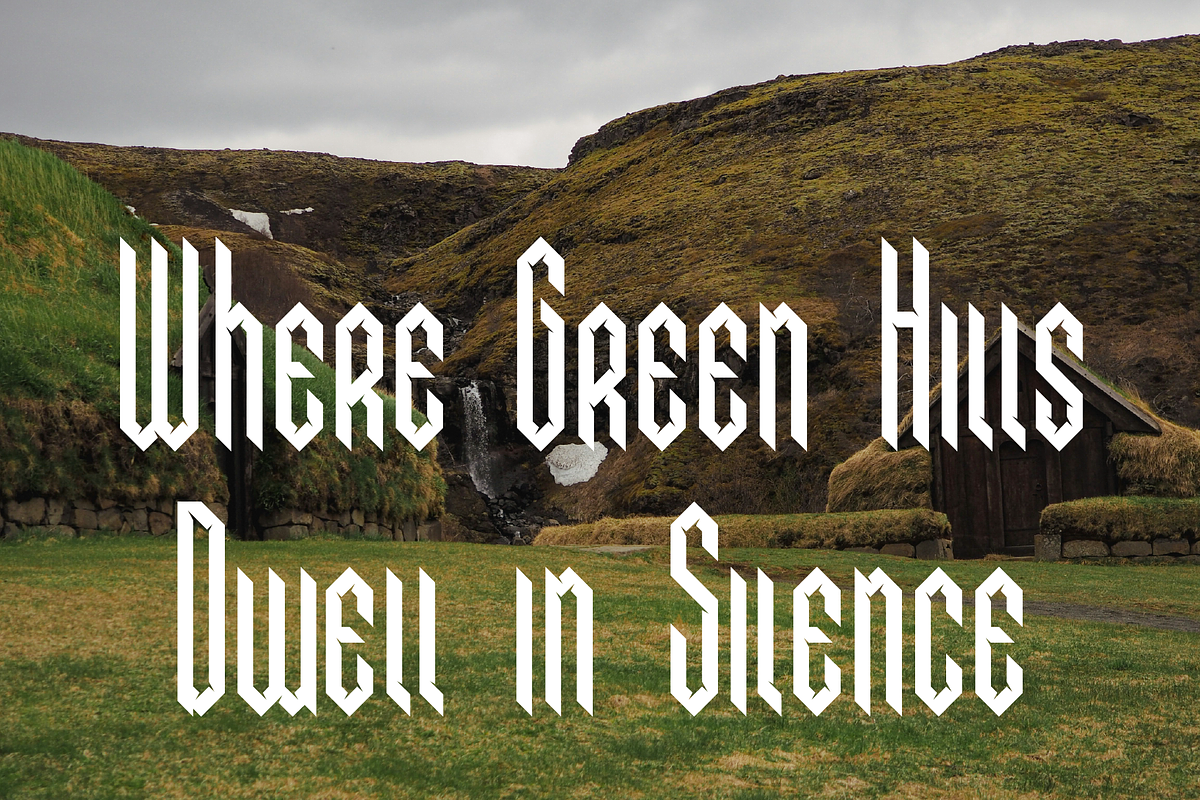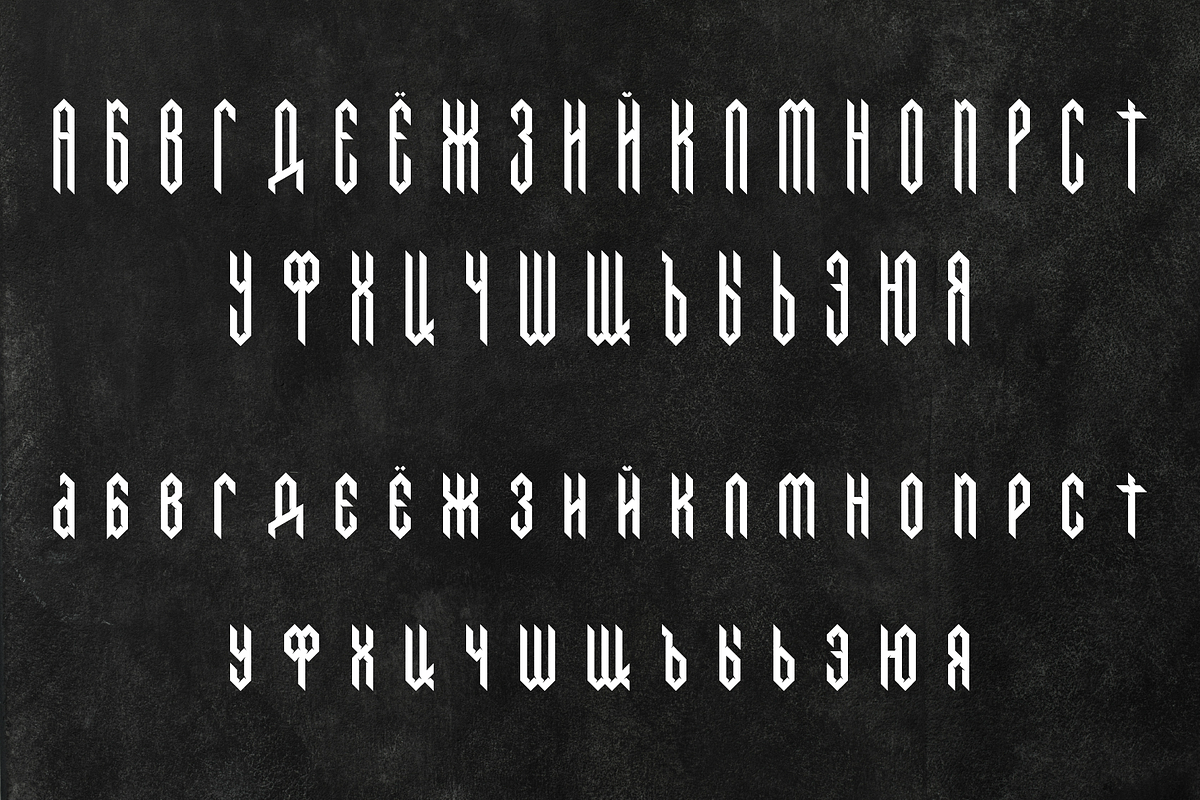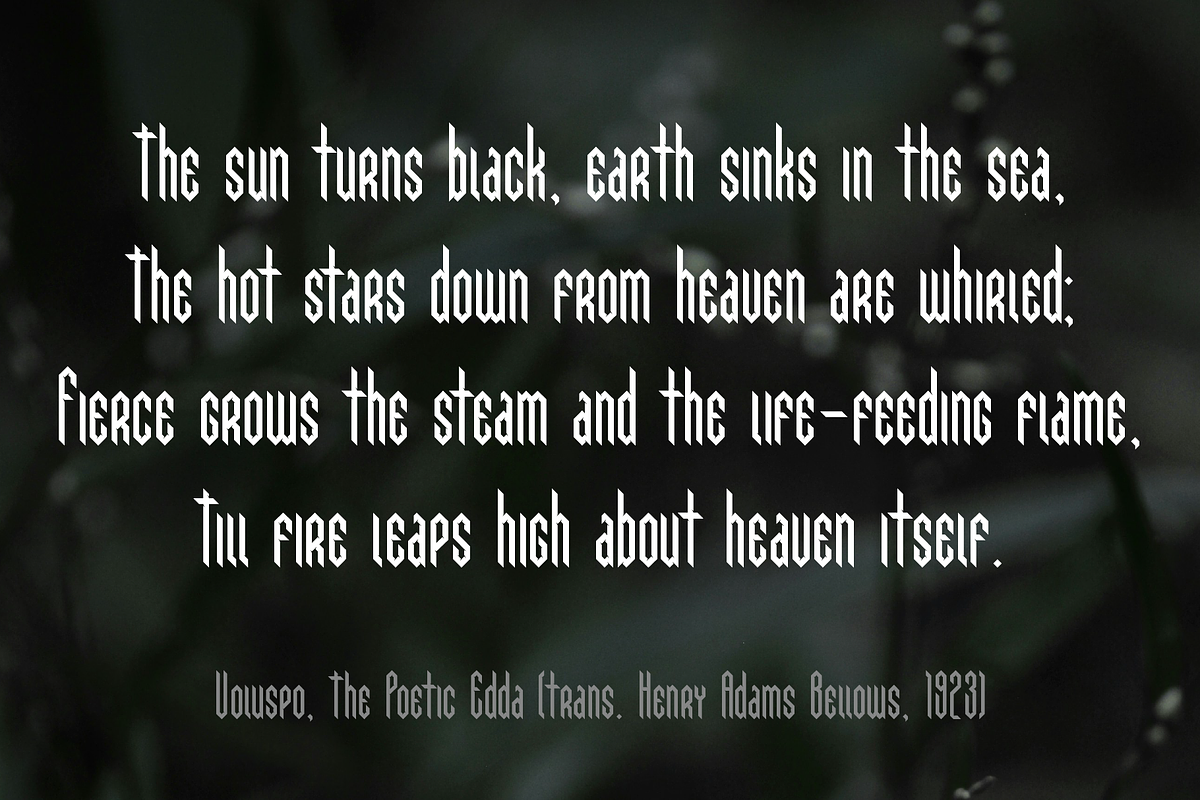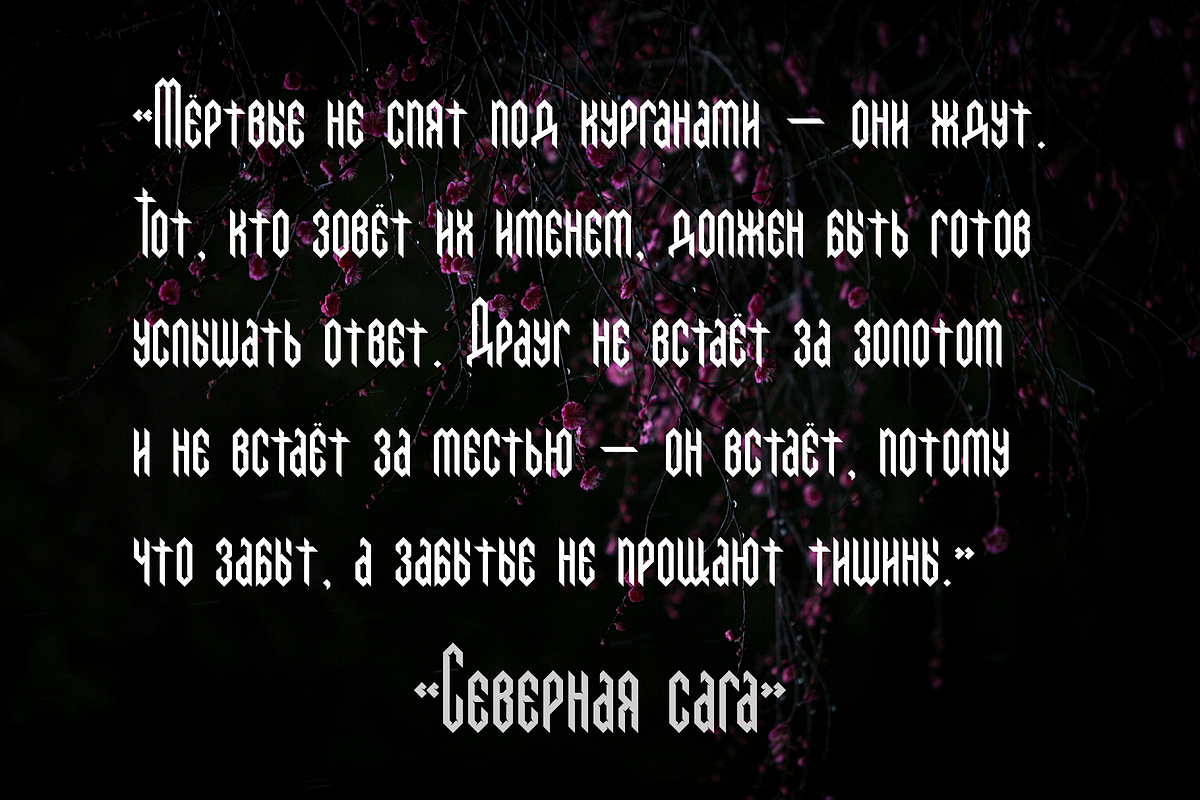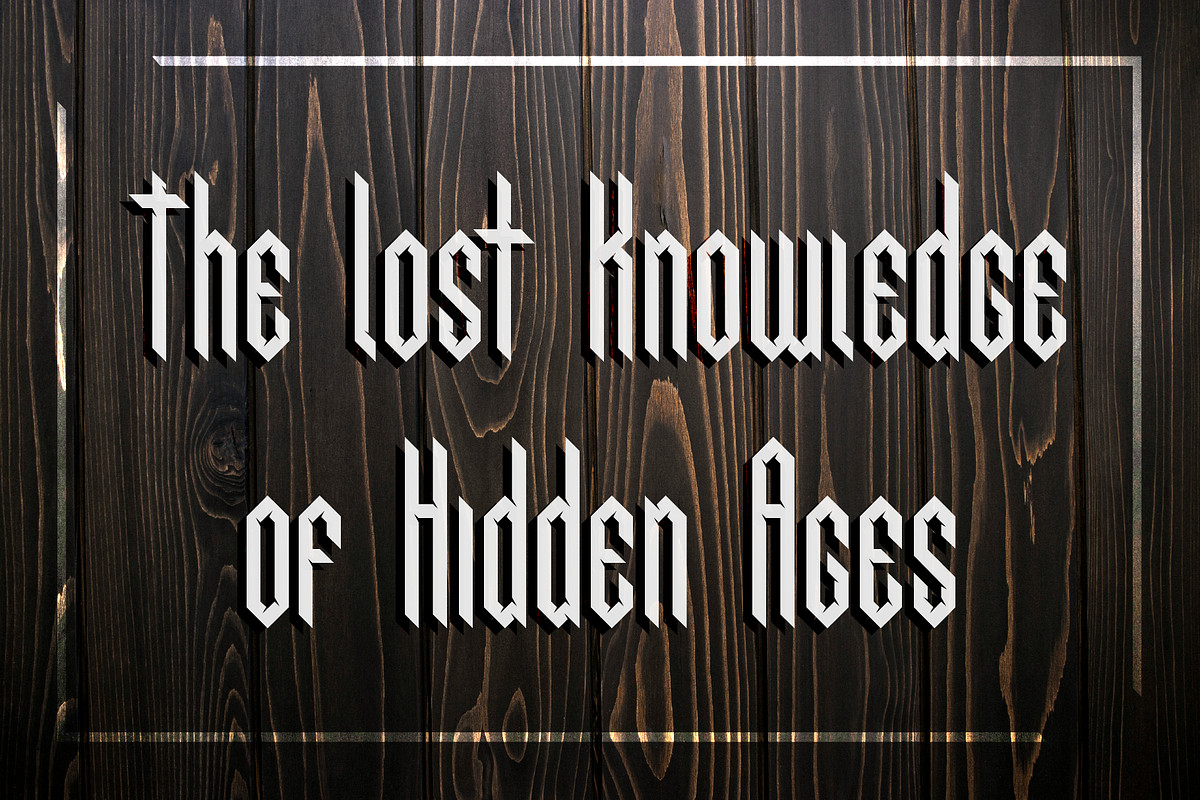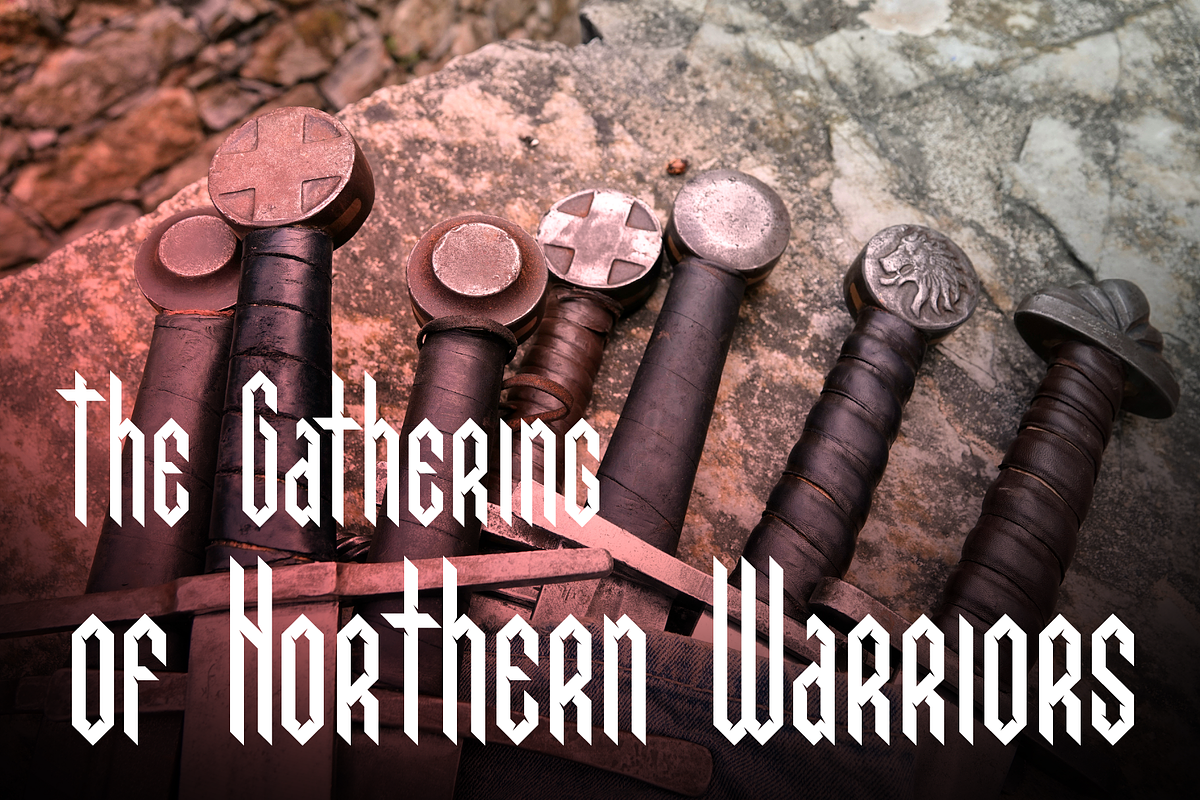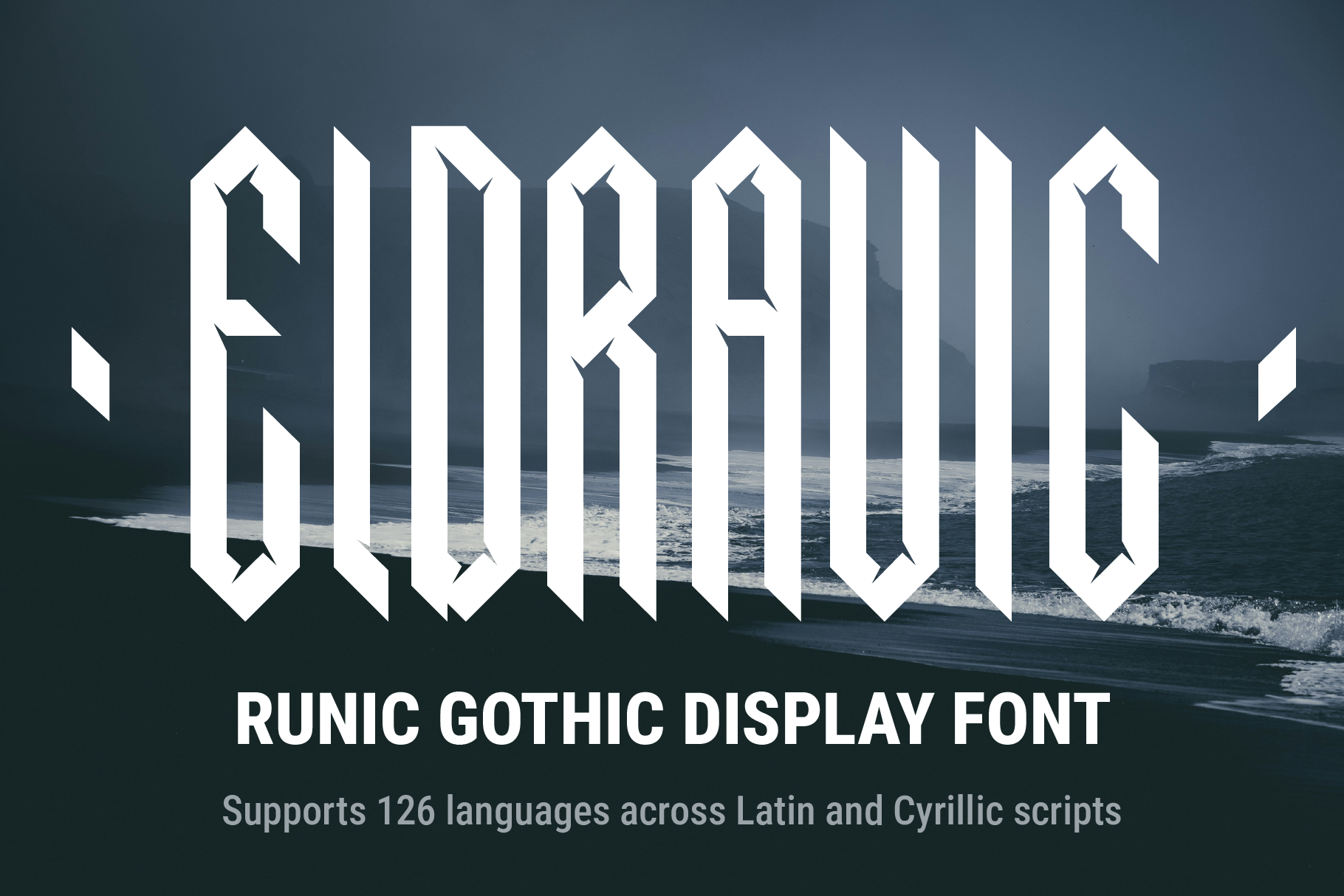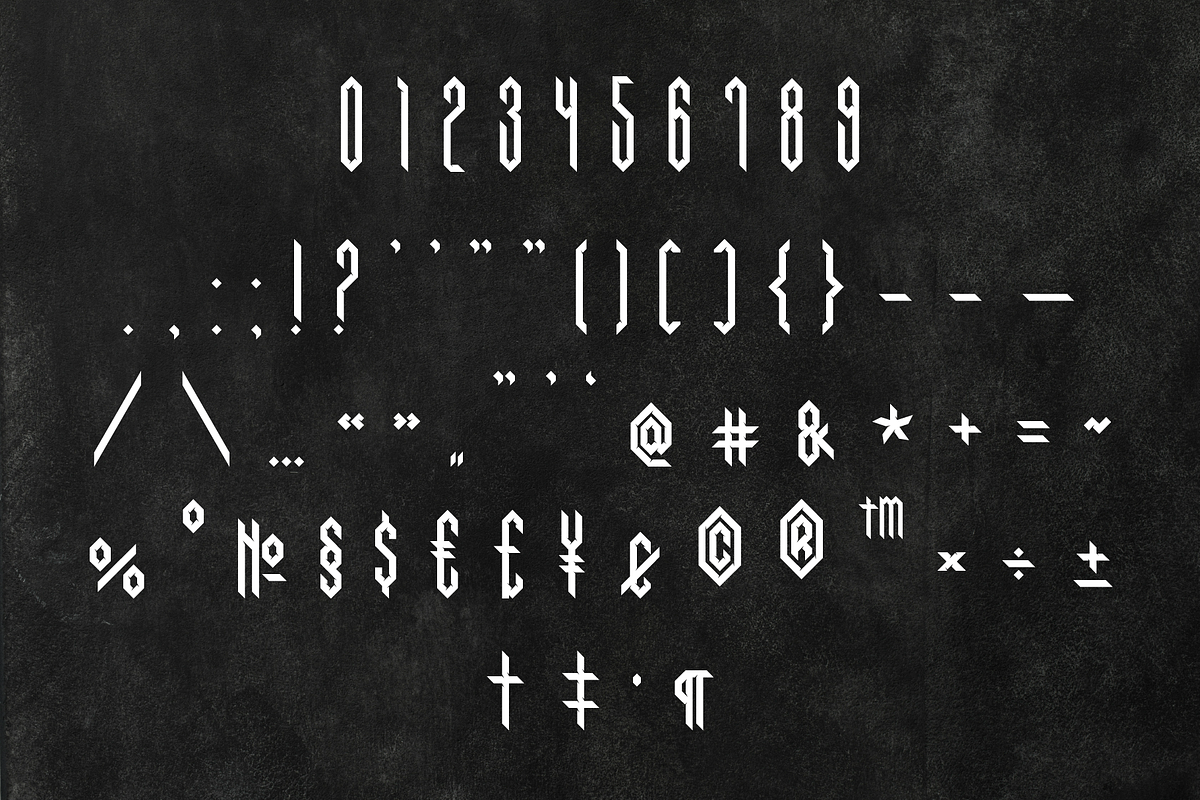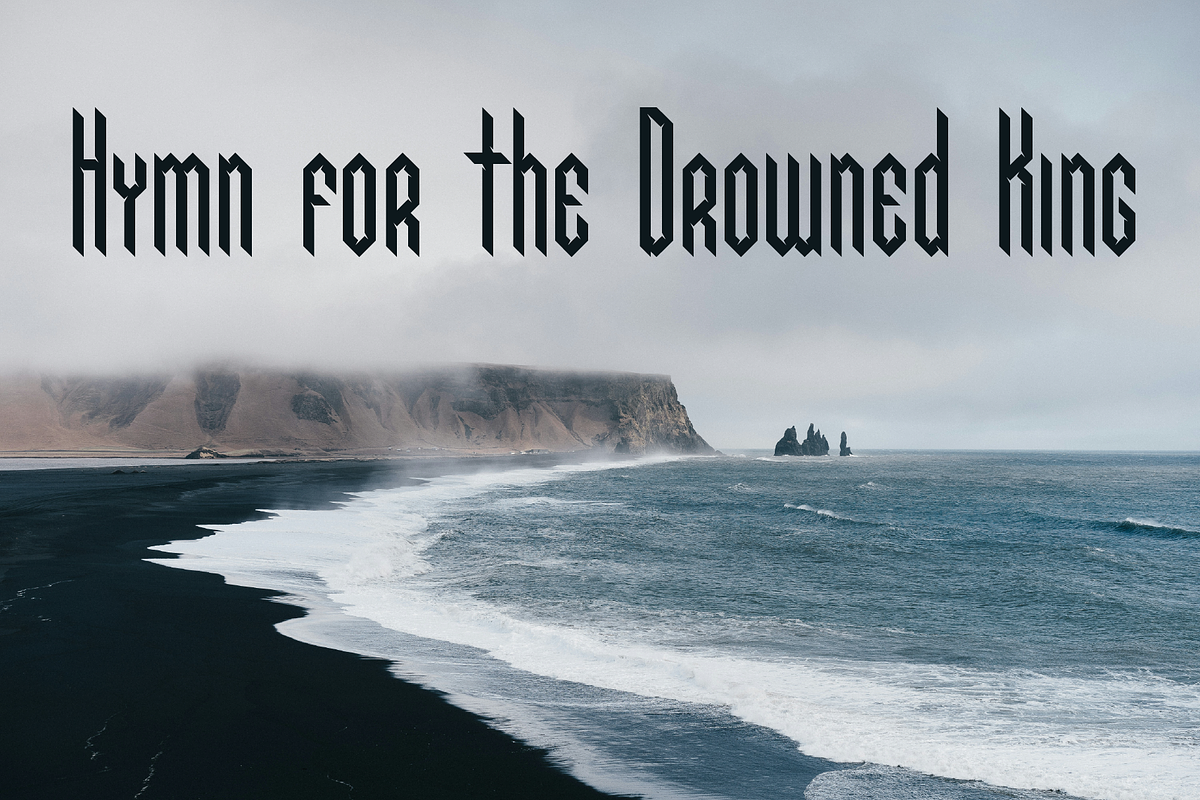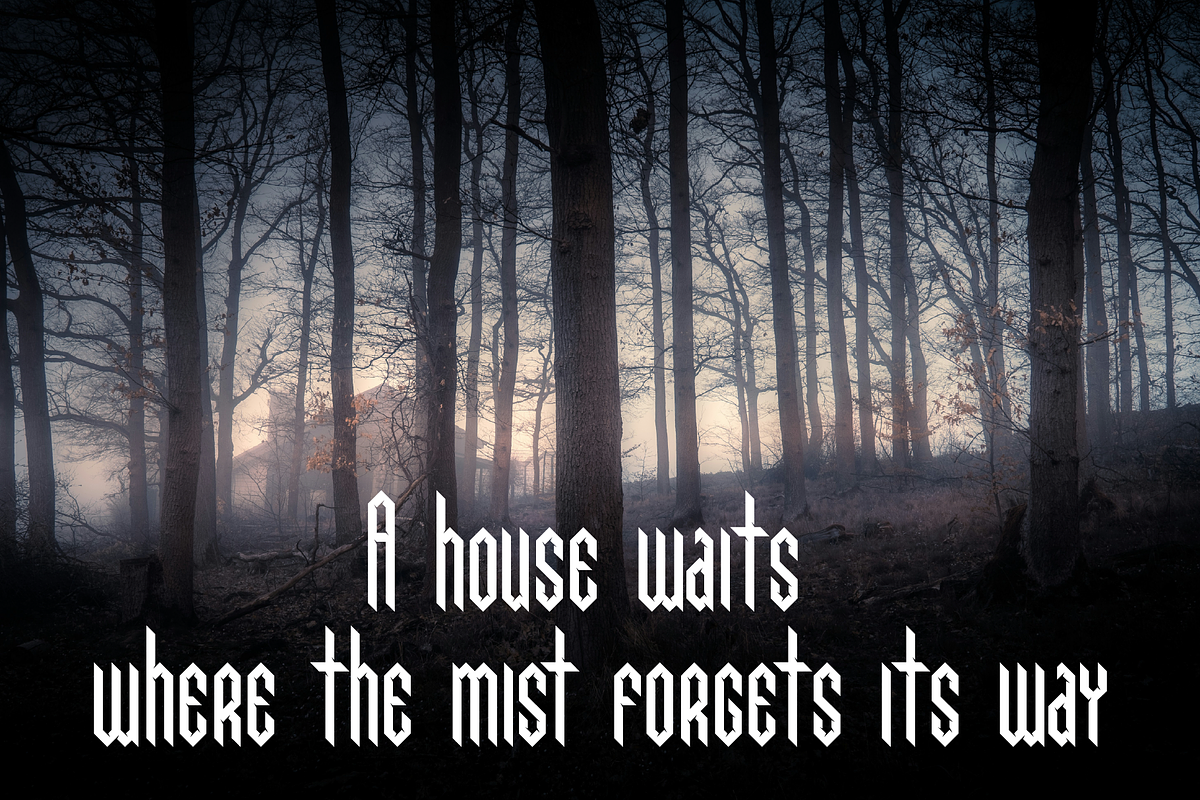
Eldravik — Runic Gothic Font
Eldravik — Runic Gothic Display Font
Meet Eldravik — a display font built for worlds that feel ancient and unstoppable at the same time.
Every letter is cut from sharp diagonals and geometric monolines, with diamond-shaped negative-space cutouts carved right into the strokes — **A, B, D, E, K, M, R, Q **all carry that signature runic break. Narrow, elongated proportions and short triangular spurs give it a carved-in-stone, futhark-inspired feel without leaning into classic blackletter. Think Norse sagas, techno-runic interfaces, and cold northern mythology — not medieval manuscripts.
Full Latin + Cyrillic support — a rare find in the runic/gothic display space. Whether your project speaks English, German, Ukrainian, or Russian, Eldravik reads clean and stays true to its identity across scripts. Verified coverage for 128 languages, so international projects are covered out of the box.
Viking & Norse-themed game logos and UI
Fantasy book covers and RPG titles
Metal band merch and horror branding
Streetwear and apparel with an edge
Any brand that wants to feel forged, not decorated
Full Latin + Cyrillic character set
**Eldravik **isn't trying to look old — it's trying to look like it was cut with precision by someone who doesn't miss. If your project needs an edge that's sharp, modern, and rooted in something older than both of you, this is it.